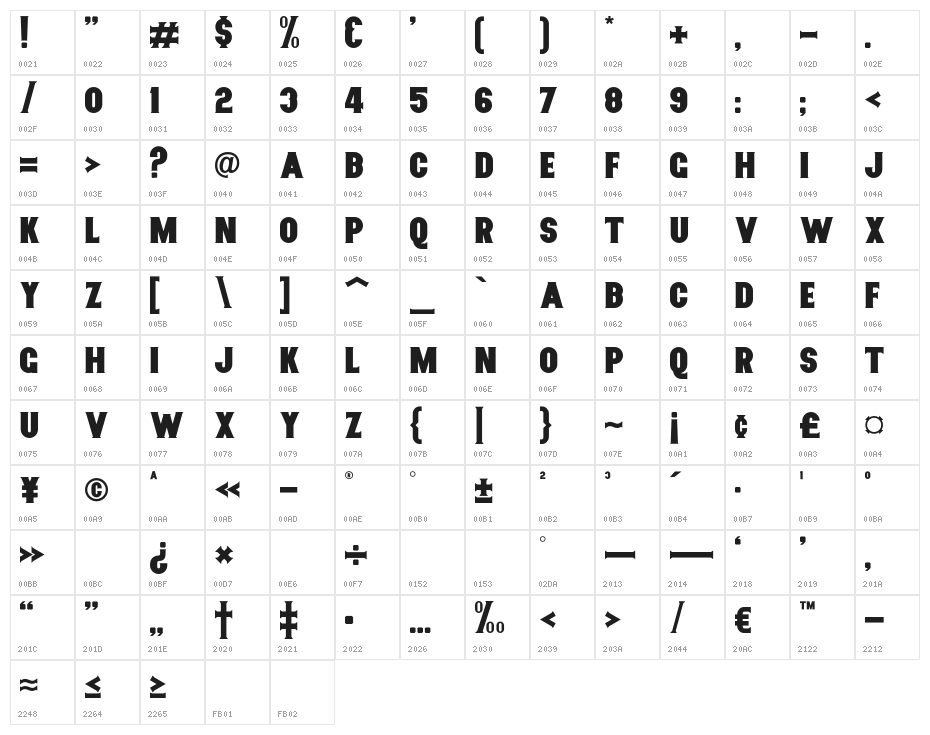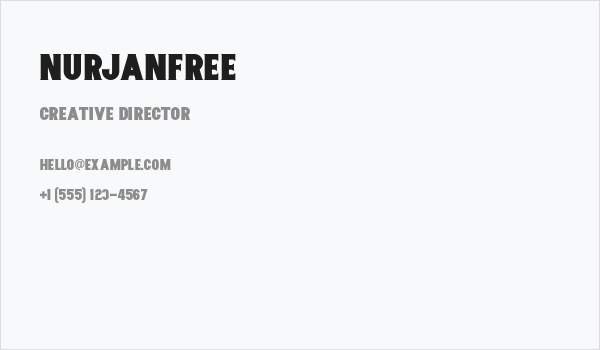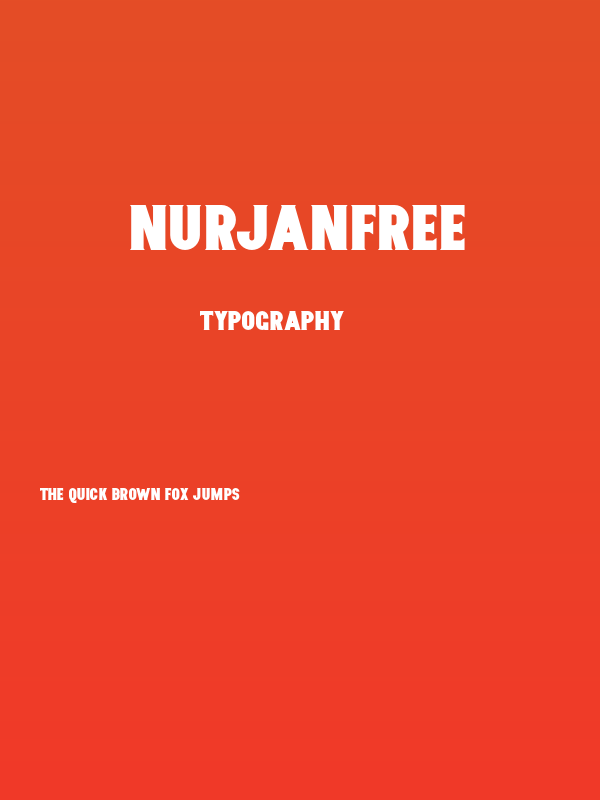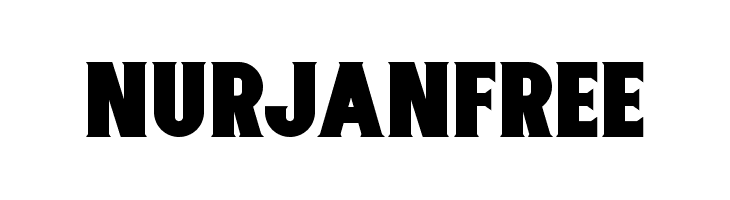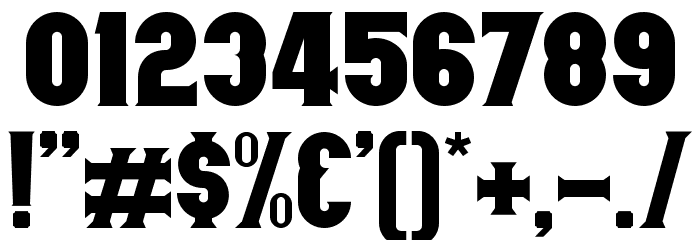
NurjanFree Font
NurjanFree Description
This font exhibits a bold and impactful design, characterized by thick, uniform strokes and a strong presence. The uppercase letters are robust and commanding, while the lowercase letters maintain a consistent weight, ensuring readability and balance. The numerals are equally bold, matching the assertive style of the alphabet. Special characters are designed with the same boldness, providing a cohesive look across all glyphs. The font's overall appearance is modern and assertive, making it suitable for projects that require a strong visual impact.
| Proposed Projects | Ideal for headlines, posters, branding, and any design requiring a strong, bold statement. |